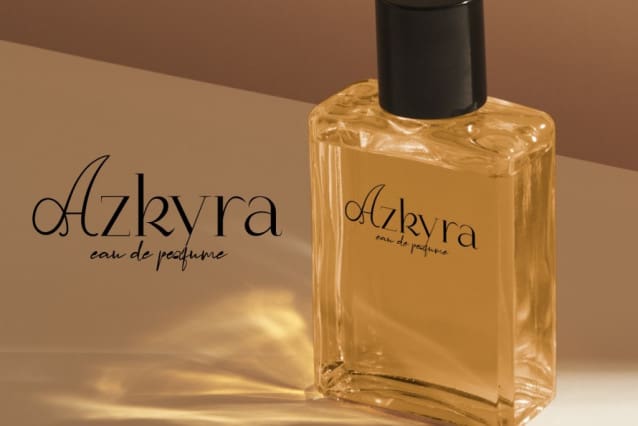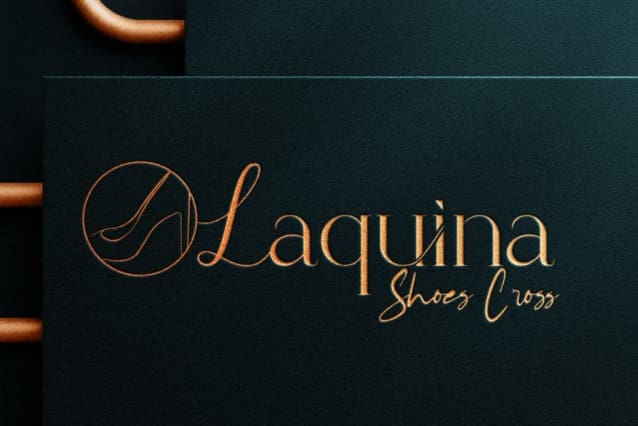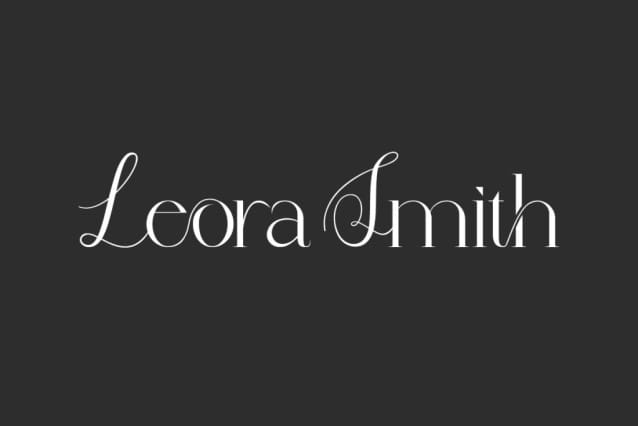
Leora Smith Font
Leora Smith Font is a modern and elegant display font with stunning italic uppercases and minimalist lowercases. This font has two different types in upper and lower case letters, namely script and serif touches which look stunning and impressive. It will suits many designs, such as brochure, custom design, gift box, invitation, label, product packaging, quote, screen printing, signage, stationery, website, and more!
Leora Smith Font includes full set of Uppercase and Lowercase Basic Characters, Numerals, Punctuation, and Ligature. This font is inspired by beauty and will be suitable for many industries, such as advertising, beauty product, event or wedding organizer, fashion, florist, furniture, handicraft, jewelry and accessories, perfume, resort, restaurant, etc.